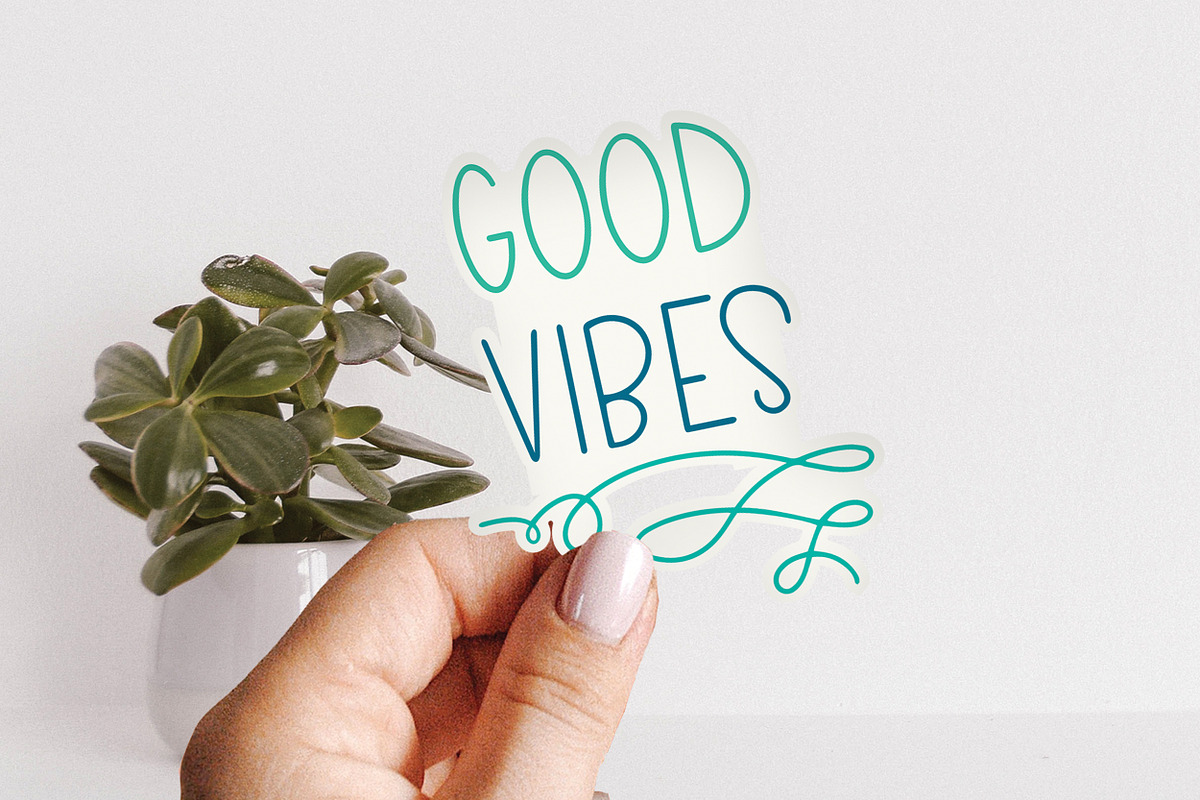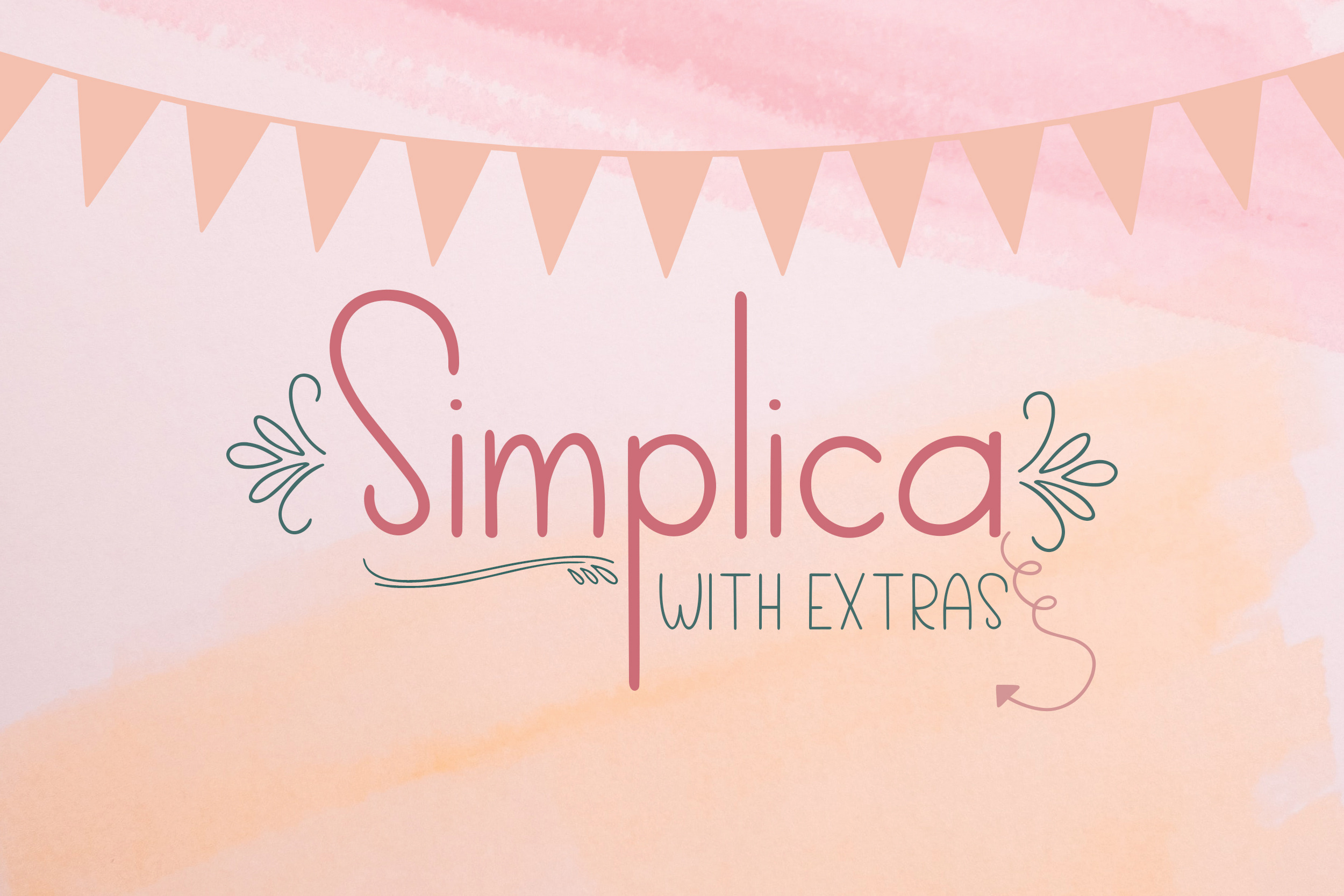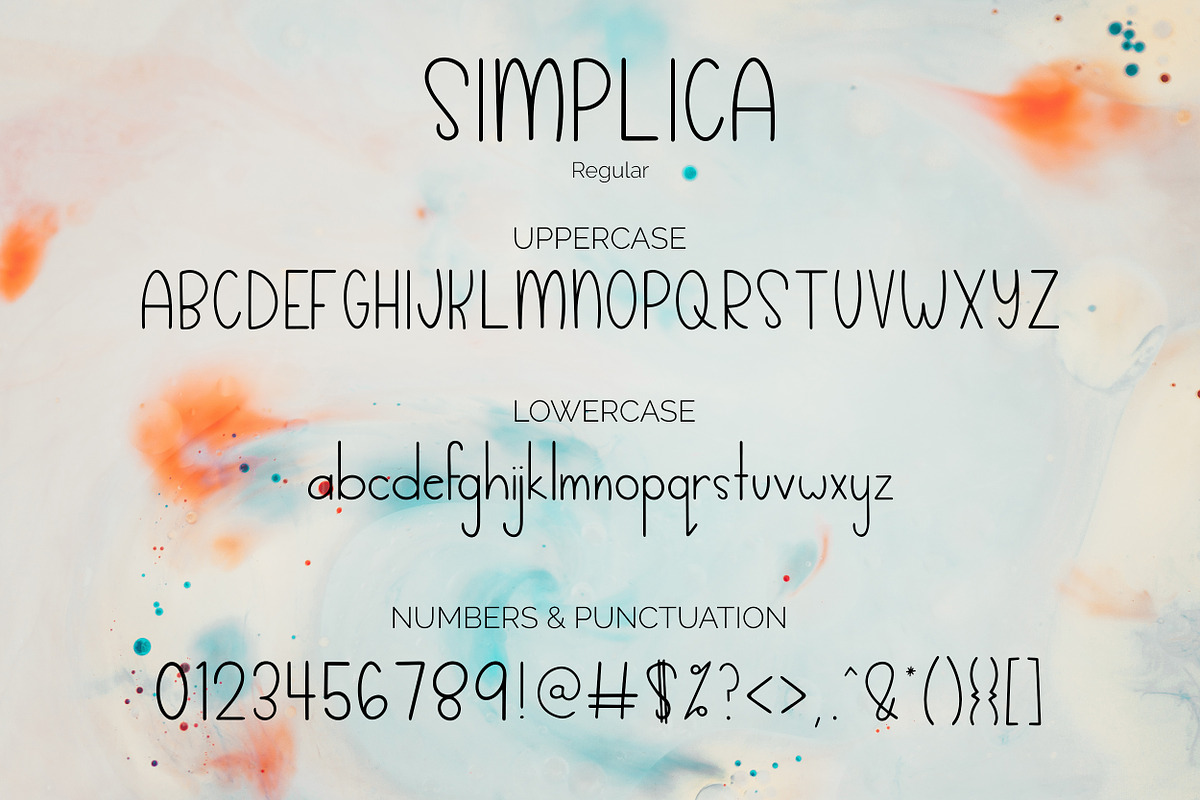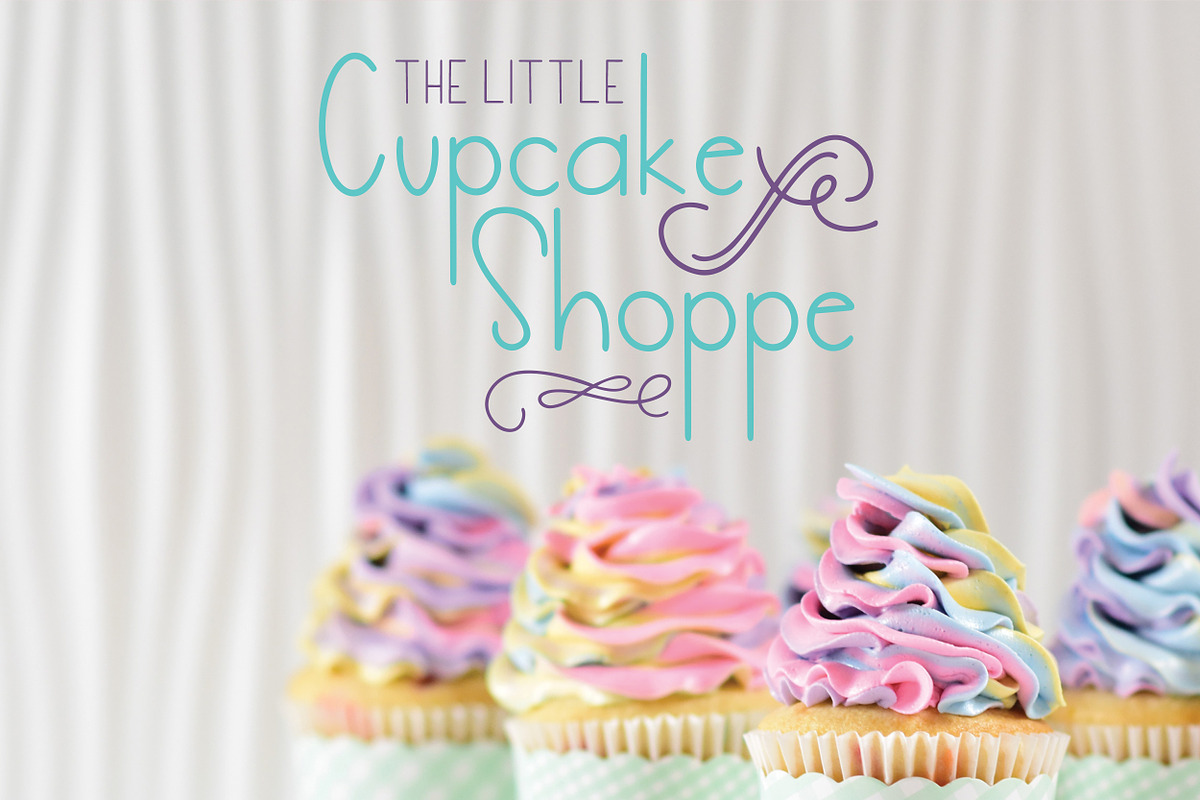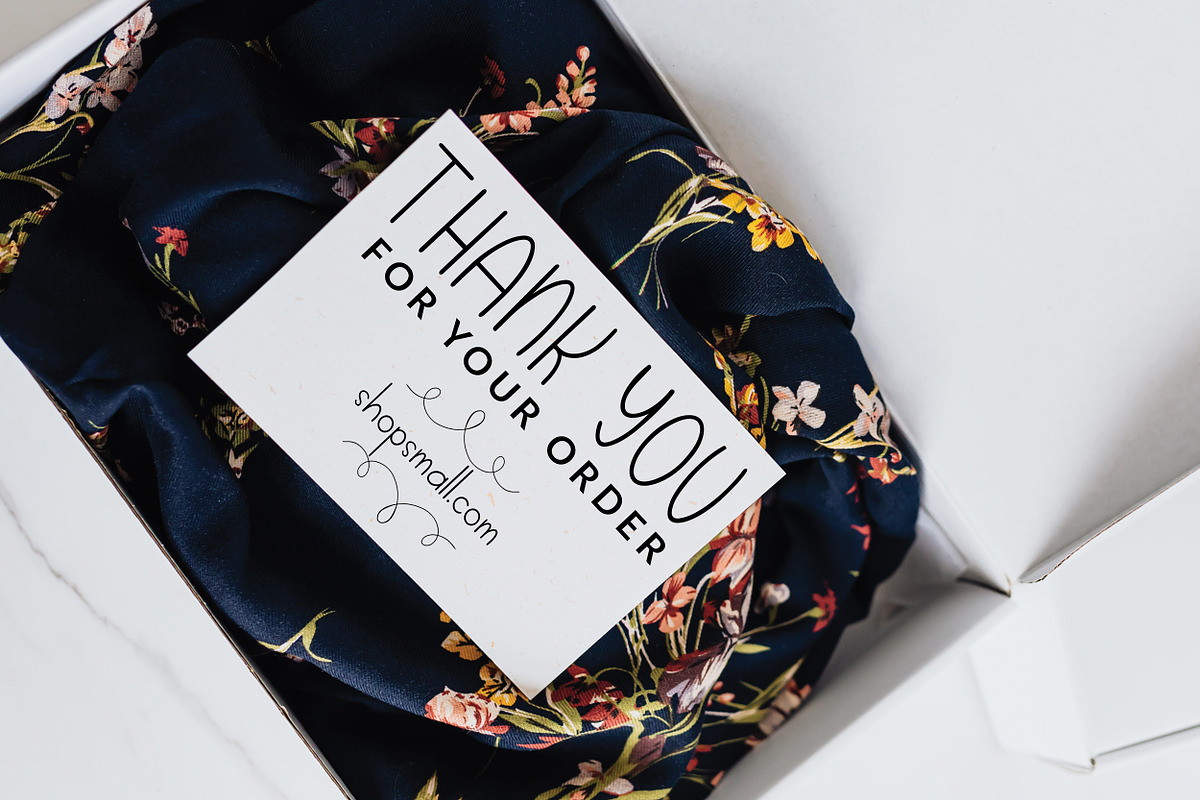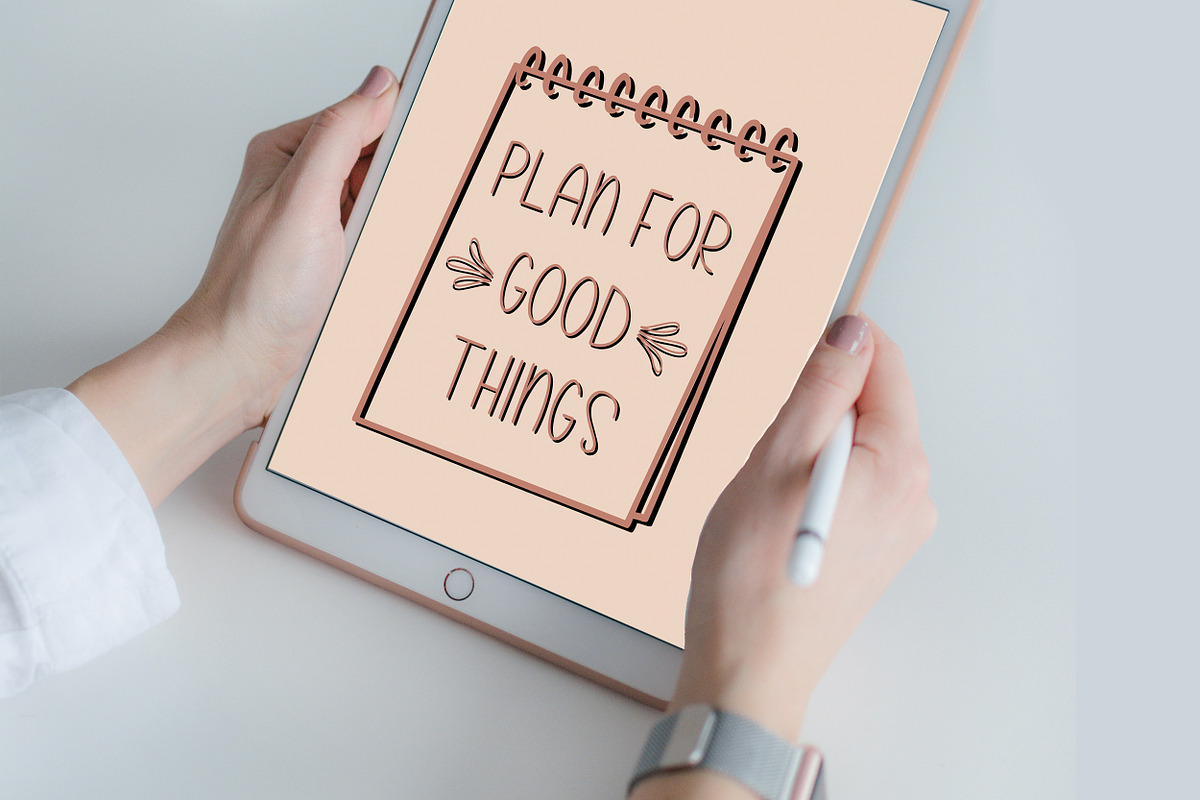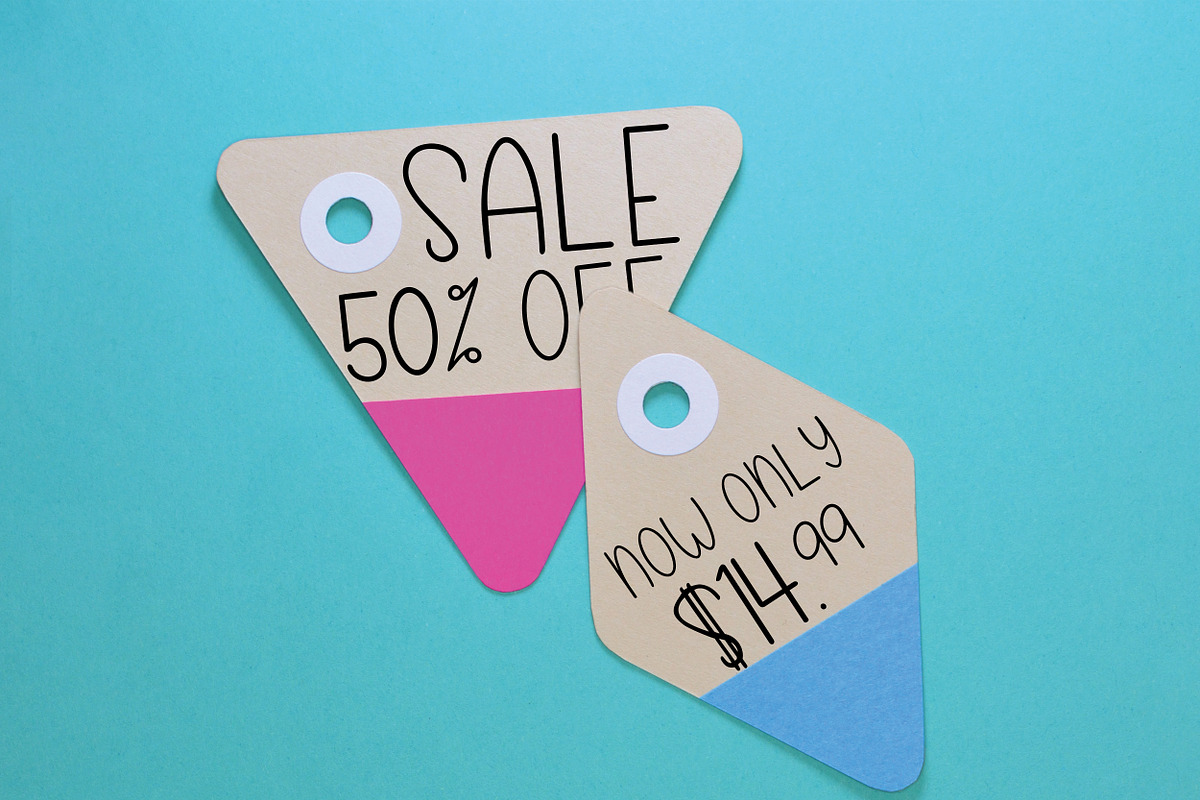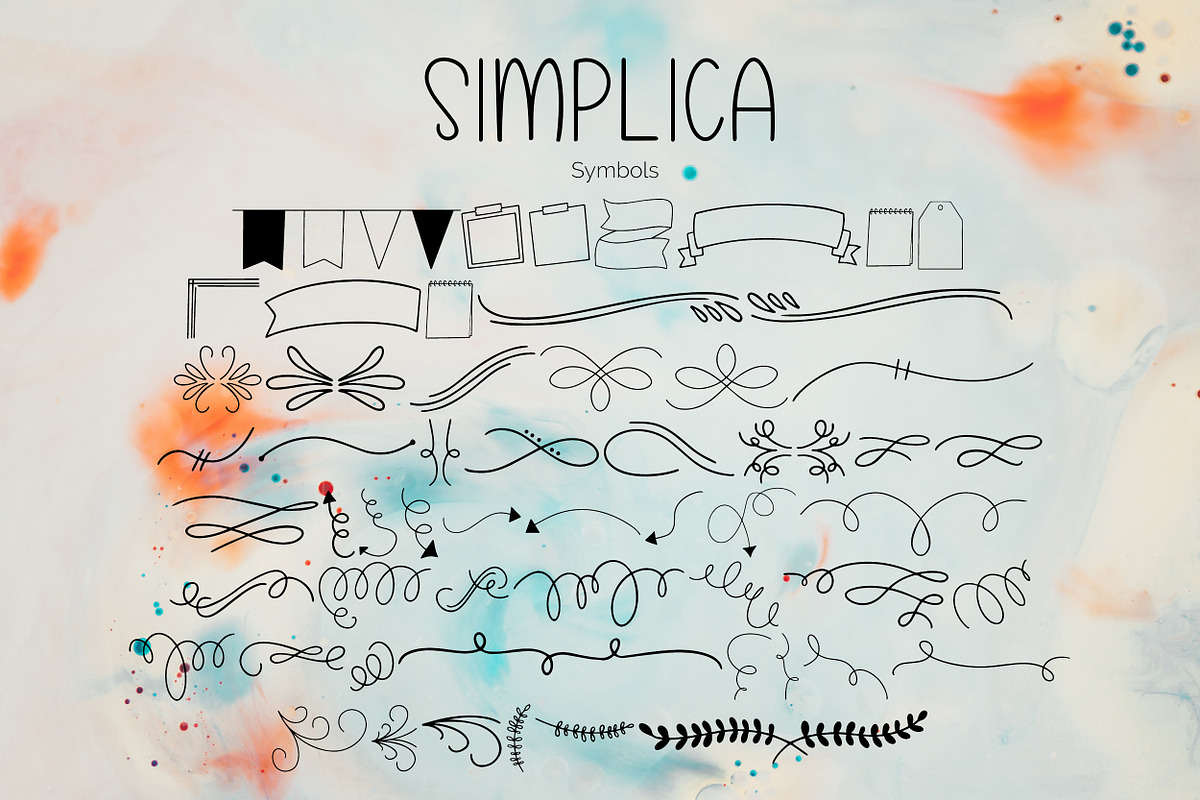
Simplica | A Unique Monoline Font
Simplica is a unique monoline font with some fantastic extras. It’s great for logos, tags and so much more! It’s super smooth and will cut out great even though it’s thin. Cheer up your designs with the cute extras.
This typeface features extreme ascenders and descenders as part of it's fun and cheerful character. The uppercase is also perfect for an all-caps look in your designs!
Check all the little arrows and swirls, banners, tags, frames and even a cute polaroid graphic!
• A full upper and lowercase alphabet with lots of unique character!
• Dramatic numbers and punctuation
• AN EXTRA FONT FILE WITH DESIGN ELEMENTS - YES! THIS FONT INCLUDES 62 EXTRAS!